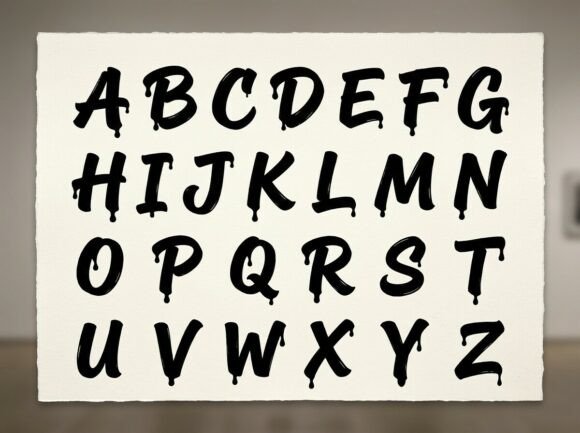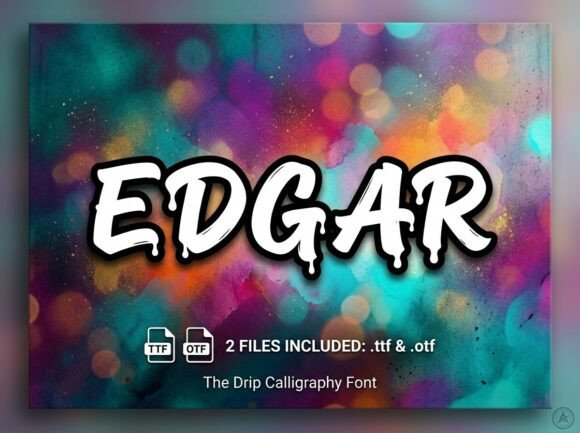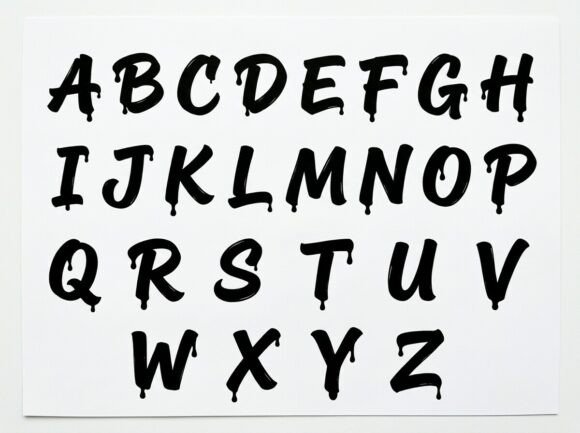
Unleash Your Creativity with Edgar Font: A Bold Statement for the Urban Edge
I still remember the design project that led me to discover Edgar Font. I was working on a streetwear branding campaign, and my client wanted a font that would make a bold statement. I scoured the internet, tried out countless fonts, but nothing seemed to capture the edgy, urban vibe I was looking for. That was until I stumbled upon Edgar Font. With its dripping brush script and gritty texture, it was like a breath of fresh air. I knew immediately that it was the perfect fit for the project.
A Bold and Fearless Font for the Creative Rebels
Edgar Font is a game-changer for designers, crafters, and creative hobbyists looking to add a touch of raw, handcrafted intensity to their work. This typeface features thick, rhythmic strokes characterized by expressive “wet paint” drips and a gritty, street-art aesthetic. Its aggressive visual weight and hand-painted texture make it an extraordinary choice for:
- Edgy streetwear branding
- Underground music posters
- Extreme sports graphics
- Standout social media headers
- ✨ Unique and bold design that grabs attention
- 💥 Expressive “wet paint” drips add a touch of realism
- 🎨 Versatile and suitable for various design projects
While Edgar Font is an amazing addition to any design project, there are a few things to keep in mind:
- ⚠️ May not be suitable for body text or long-form content due to its bold and expressive nature
- 🤔 Limited use of uppercase letters, but the font makes up for it with its stylistic alternates
Edgar Font was designed with the urban edge in mind. Its creator, a talented type designer, drew inspiration from the streets, graffiti, and street art. The font’s bold, dripping brush script is a nod to the raw, unbridled energy of urban culture.
Q: What is Edgar Font best used for?
A: Edgar Font is best used for edgy streetwear branding, underground music posters, extreme sports graphics, and standout social media headers.
Q: Is Edgar Font suitable for body text?
A: No, Edgar Font is not suitable for body text due to its bold and expressive nature. It’s best used for headlines, titles, or short-form content.